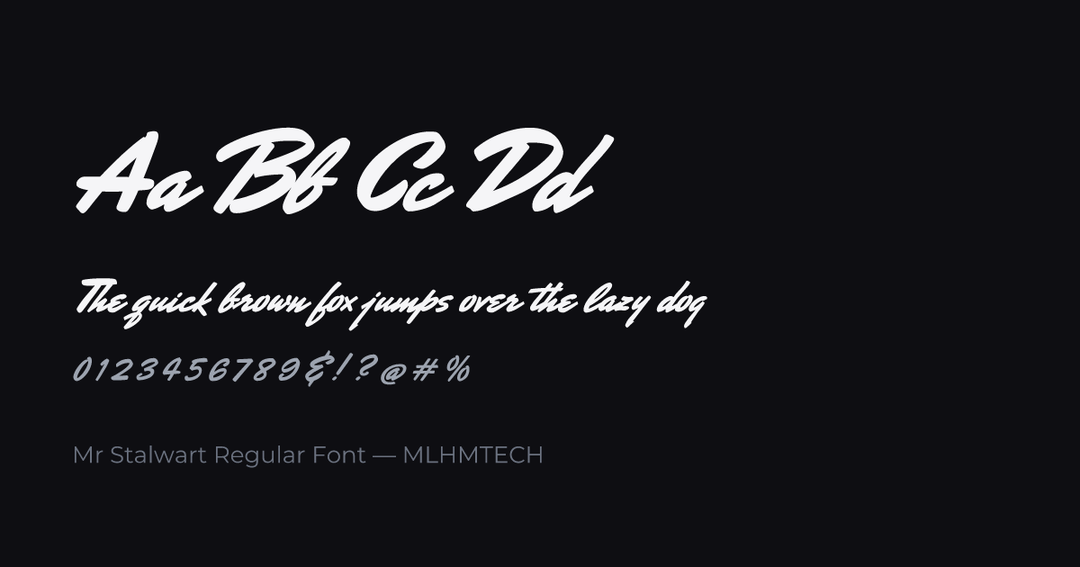
Mr Stalwart Regular Font
Mr Stalwart Regular is a bold, characterful display font that adds personality to any design. Ideal for headlines, posters, and branding.
Mr Stalwart Regular is a distinctive display typeface with a strong, confident presence. Its bold strokes and unique character shapes make it perfect for grabbing attention in headlines, posters, and branding materials. Whether you're designing a logo, a social media graphic, or a print layout, this font brings a touch of rugged charm and versatility.